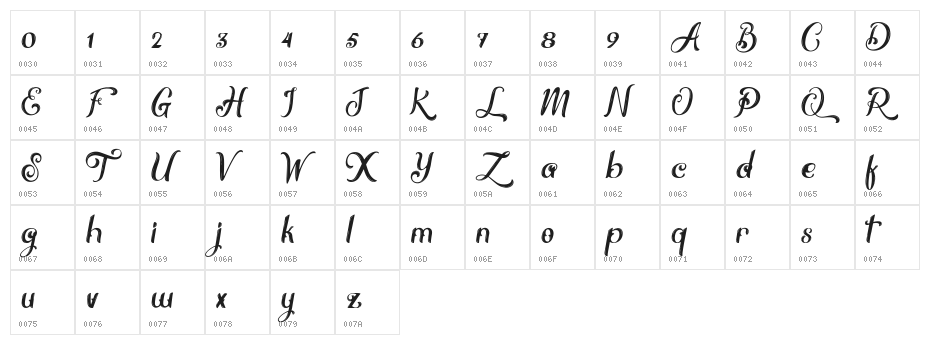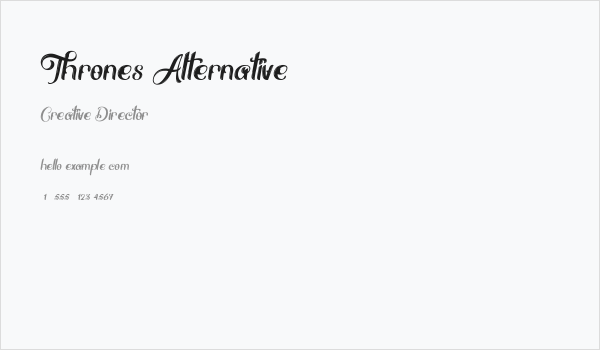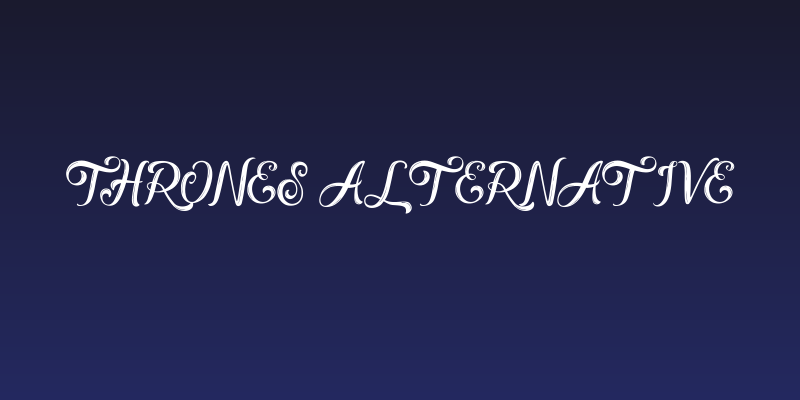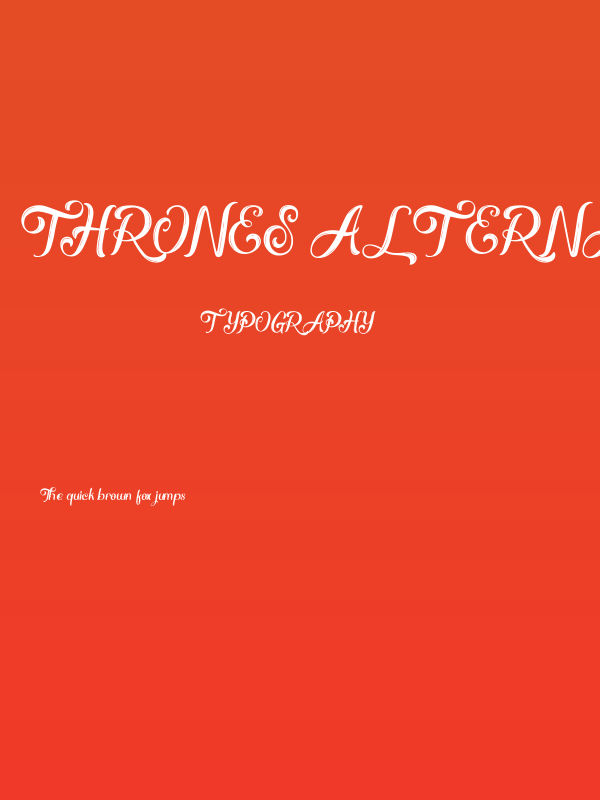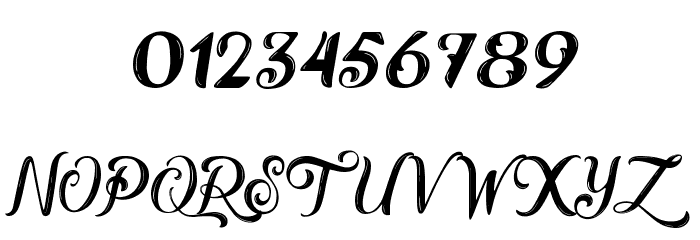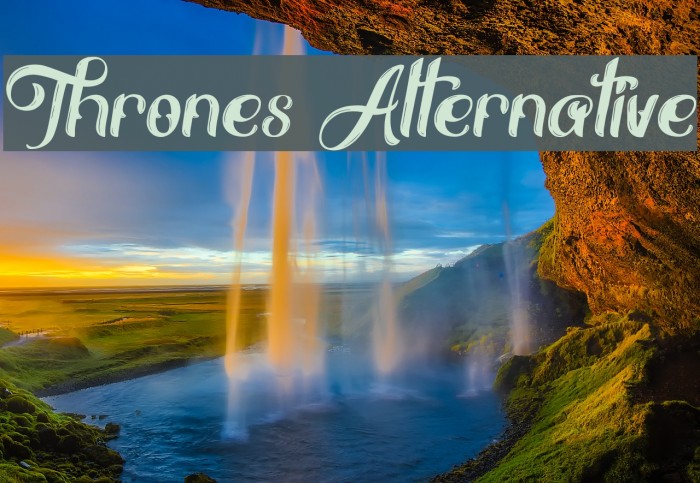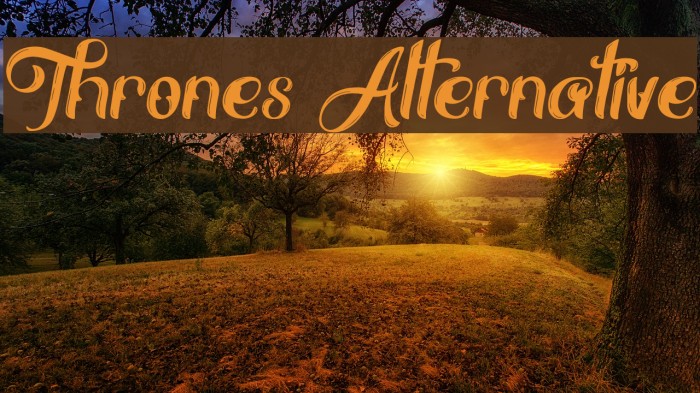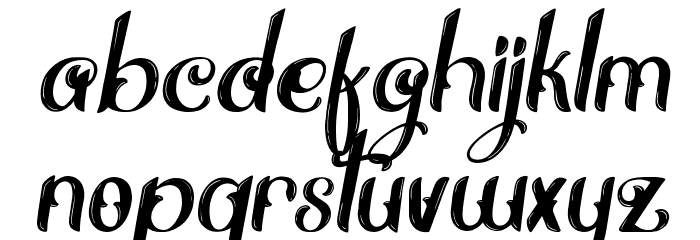
Thrones Alternative Font
Thrones Alternative Description
This font features an elaborate and decorative style with a strong emphasis on elegance and flair. The uppercase letters are characterized by intricate swirls and loops, giving them a regal and sophisticated appearance. The lowercase letters maintain a similar decorative quality, with some characters extending below the baseline, adding to the font's ornate nature. The numerals are consistent with the overall style, featuring unique curves and embellishments. This font is ideal for projects that require a touch of luxury and grandeur.
| Proposed Projects | Ideal for wedding invitations, luxury branding, high-end product packaging, and decorative headlines. |